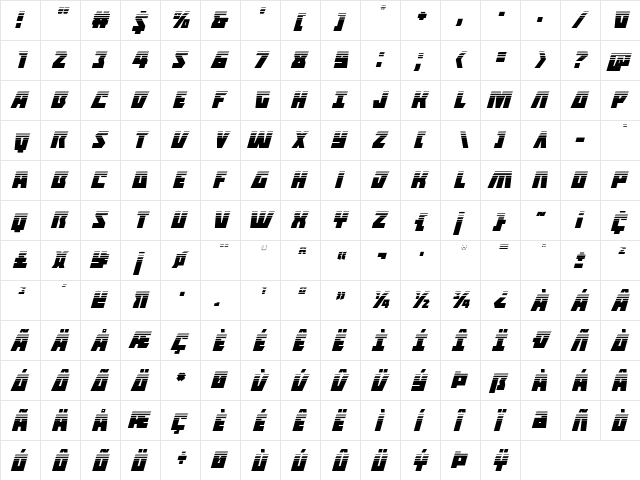
Halfshell Hero Half-Tone Italic Italic
Design Context for Halfshell Hero Half-Tone Italic Typeface
Halfshell Hero Half-Tone Italic is a composed and adaptable typeface that performs quietly and consistently across a wide range of design contexts. The slanted form adds forward momentum and visual energy.
Pro Tip: Use Halfshell Hero Half-Tone Italic for emphasis, pull quotes, and subheadings where its slanted energy can add rhythm to the layout.